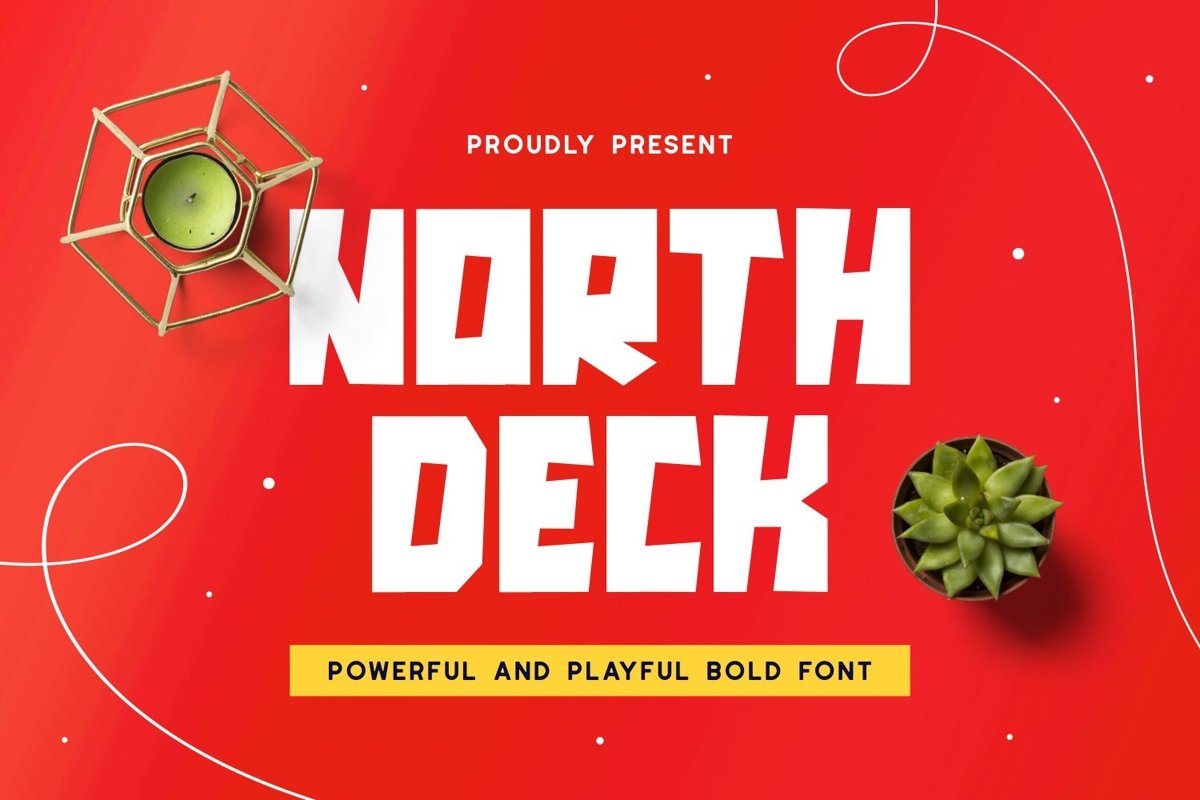
Northdeck is a powerful sans serif display typeface come with playful themes. It matches applies in some designs such as the logotype, brand, packaging, quotes, kids poster, shirt, children’s book and more custom design. The features uppercase, lowercase, numeral, punctuation & symbol, multilingual support, PUA encoded (fully accessible without additional design software).
Northdeck